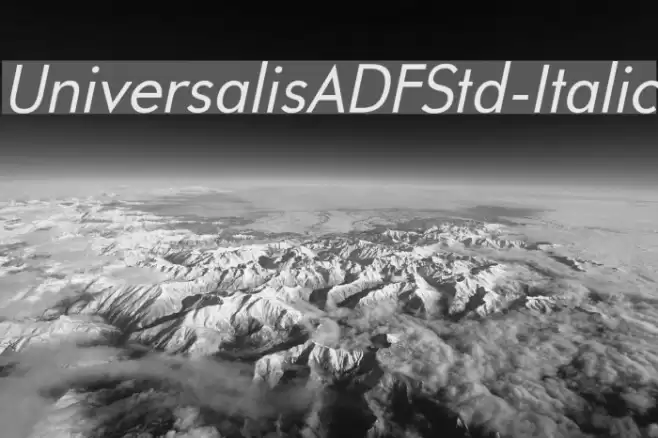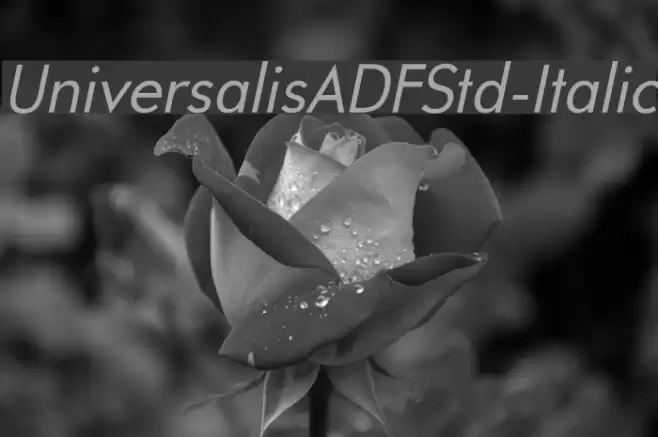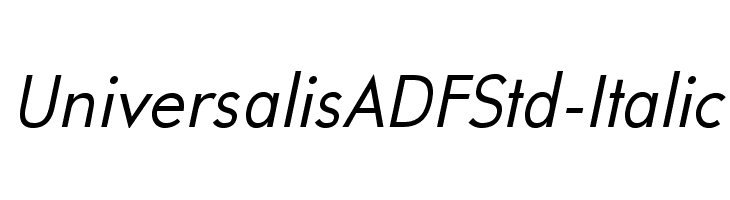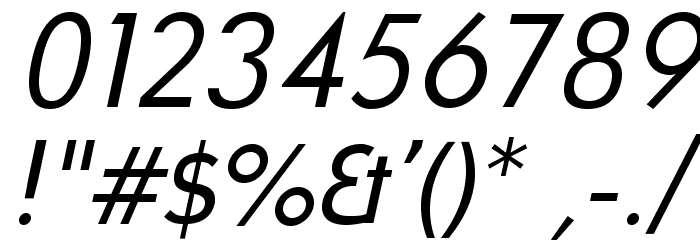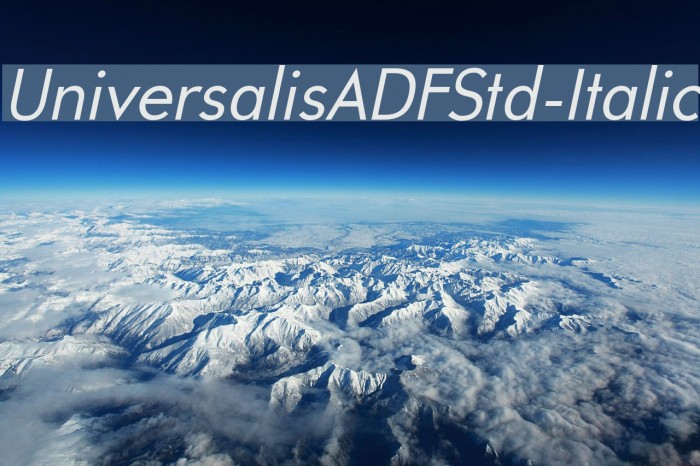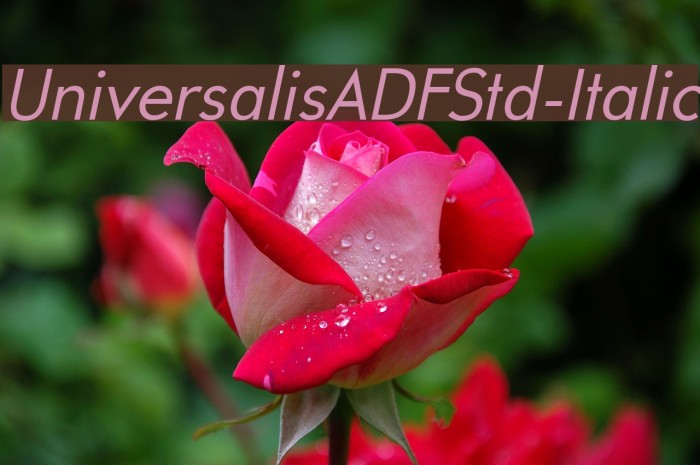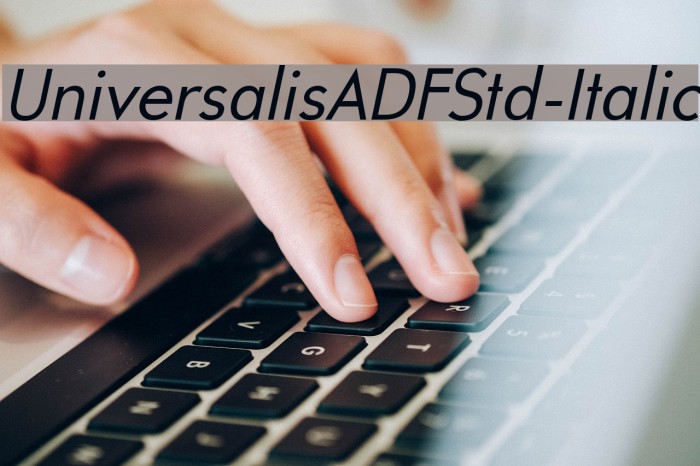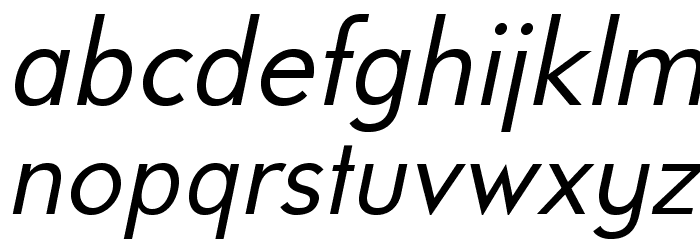
UniversalisADFStd-Italic Font
UniversalisADFStd-Italic Description
This font features a clean and modern italic style with smooth curves and a slight slant, giving it an elegant and dynamic appearance. The characters are well-proportioned, with a consistent stroke width that maintains readability across various sizes. The uppercase letters are slightly taller than the lowercase, providing a balanced contrast. The numerals are clear and distinct, making them suitable for both text and numerical data. Special characters are well-designed, fitting seamlessly with the overall aesthetic. The font's design is versatile, making it suitable for a wide range of applications.
A modern italic font with smooth curves and a dynamic appearance from Uncategorized fonts.
- Proposed Projects: Ideal for branding, editorial design, websites, and advertising materials.